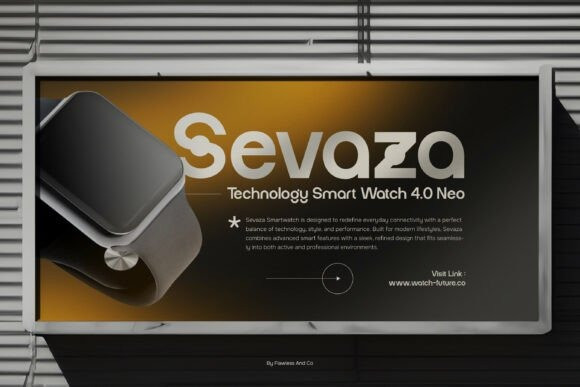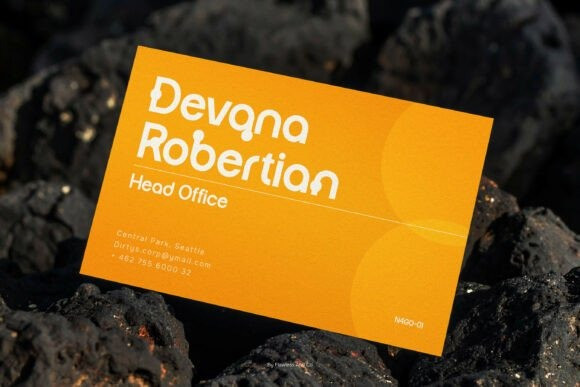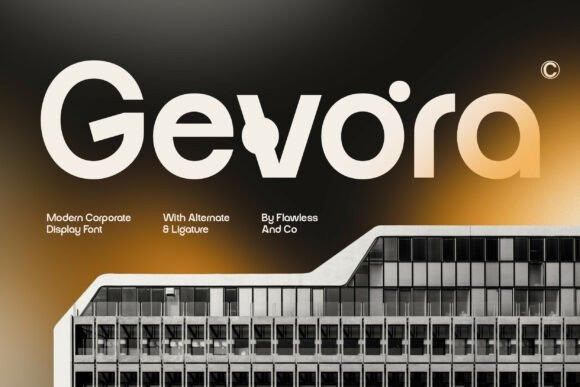
Gevora Font
Gevora Font is a modern corporate display font designed to deliver a clean, professional, and confident visual identity. With its structured letterforms and balanced proportions, Gevora creates a strong impression of clarity and reliability, perfect for brands that want to communicate trust and sophistication.